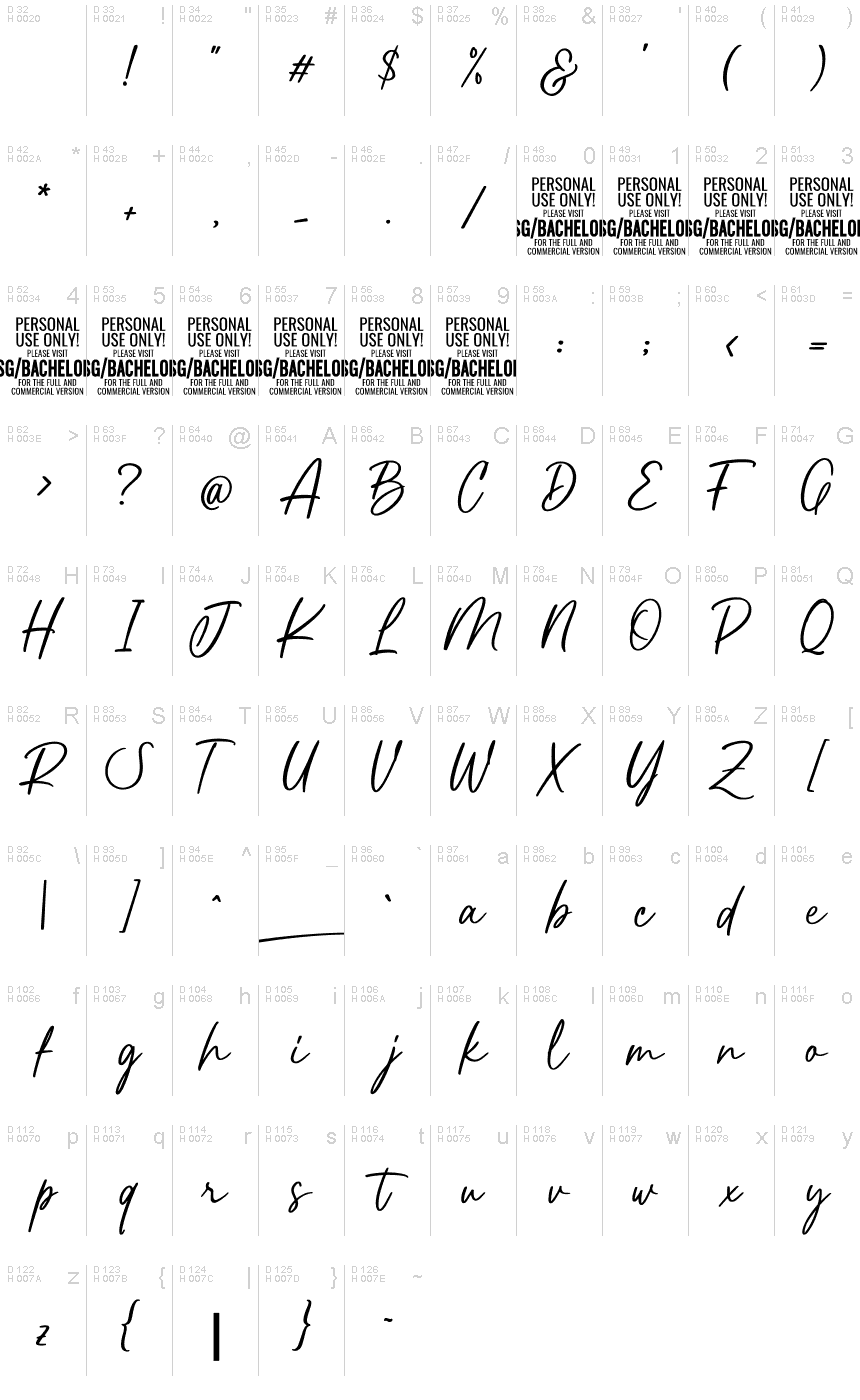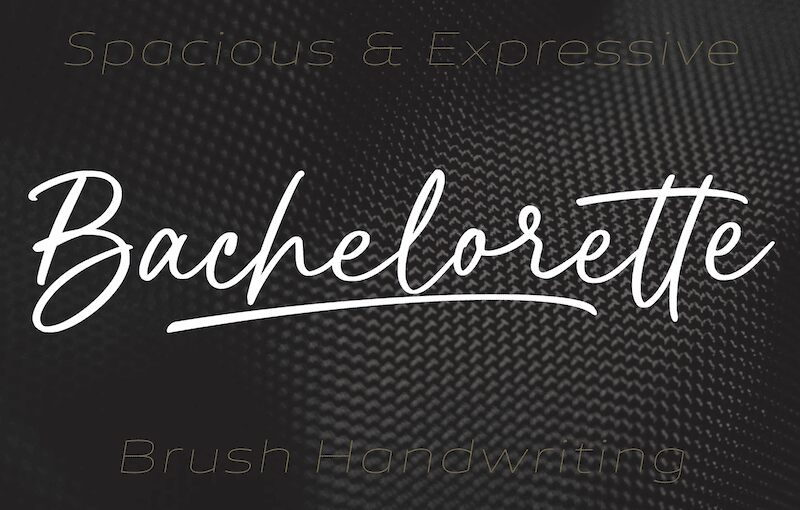
Bachelorette PERSONAL USE ONLY Regular
The Bachelorette font, created by renowned designer Mans Greback, is a semi-light handwritten typeface that exudes elegance and femininity. Its soft curves and delicate strokes make it perfect for bridal shower invitations, wedding programs, and other romantic projects. However, its versatility extends beyond just wedding-related items. Bachelorette is also suitable for beauty blogs, fashion magazines, and lifestyle brands seeking a touch of sophistication. With its refined appearance and SEO-optimized design, Bachelorette is the ultimate choice for those looking to add a touch of personality to their online presence.
Use underscore _ anywhere in a word to make swashes.
Example: Bach_elor
Use multiple underscores to make different swashes.
Example: Love__letter